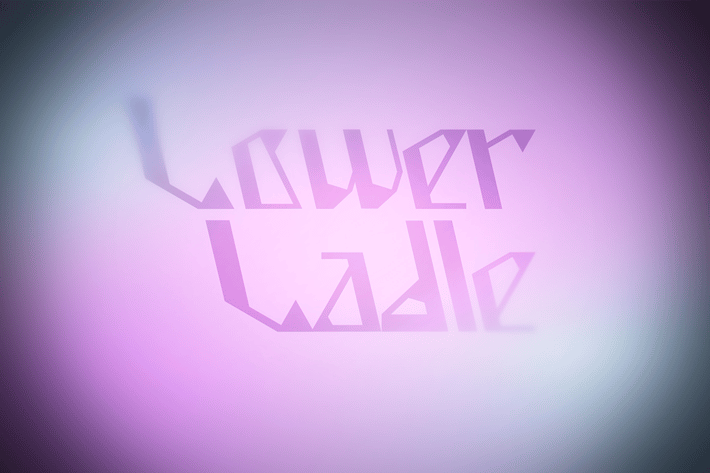
Lower Ladle Font
Modern geometric decorative font.
It is most suitable for headlines of all sizes, perfect for logos,
advertising, music Industry, apparel design,
and other items like labels, posters, flyers.
+ English character set (Letters and numbers)
+ Russian character set (Letters and numbers)